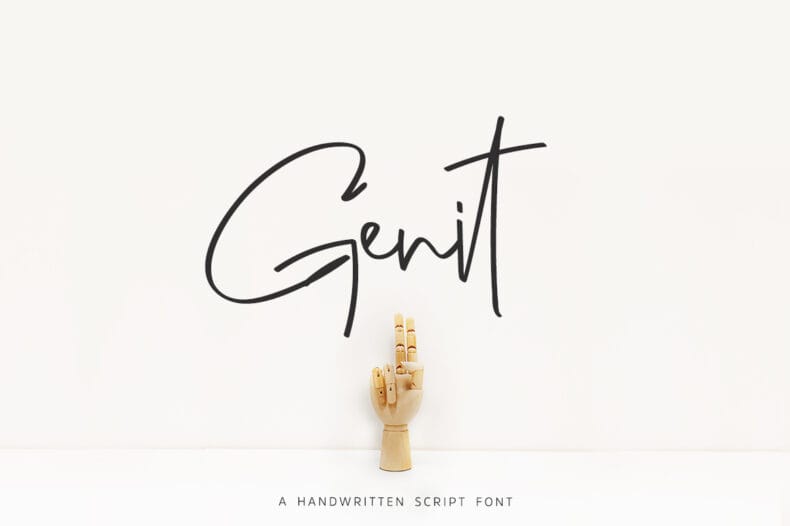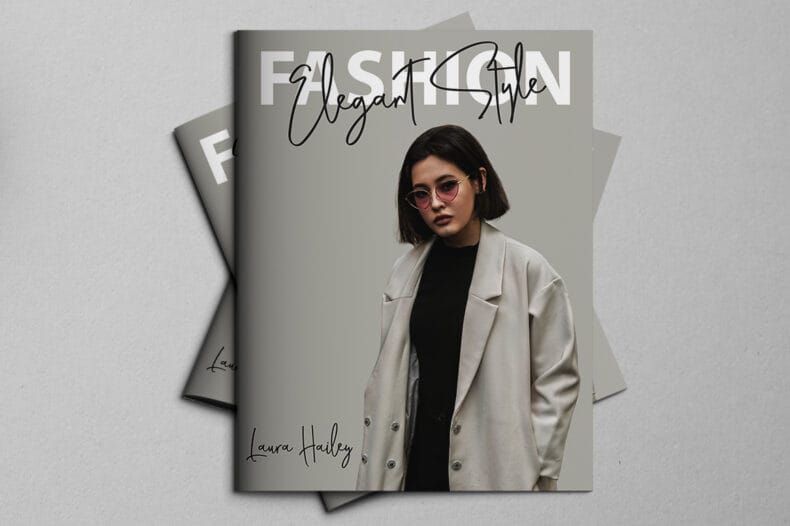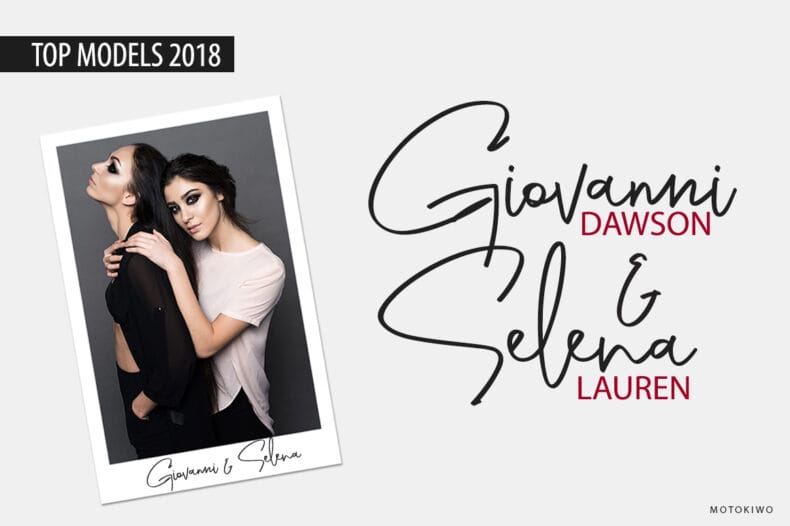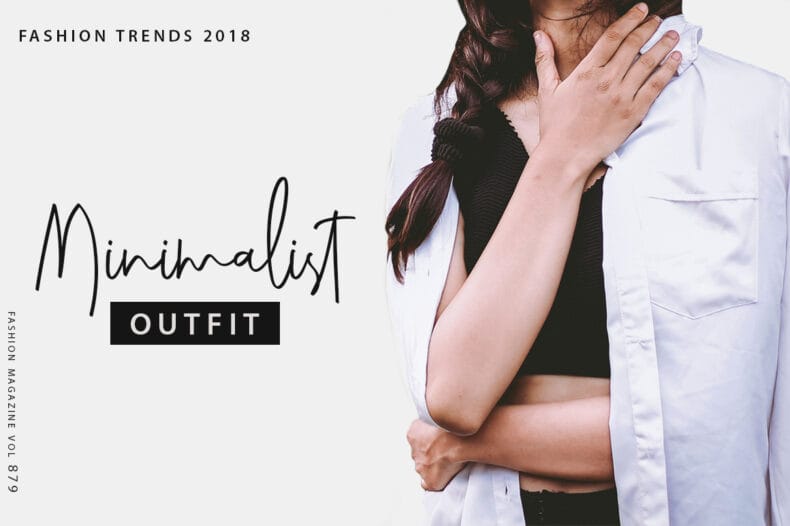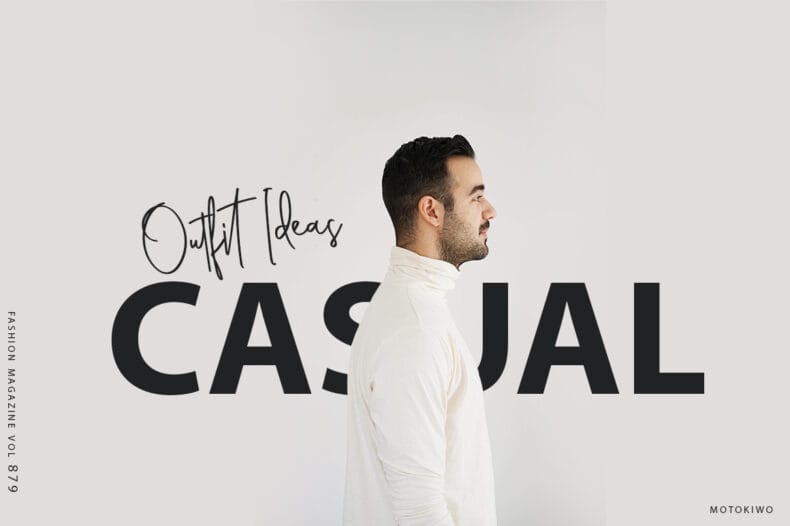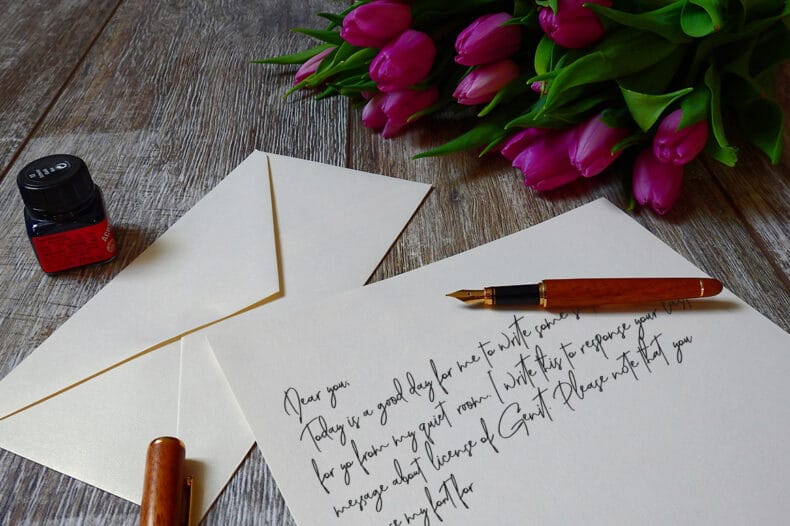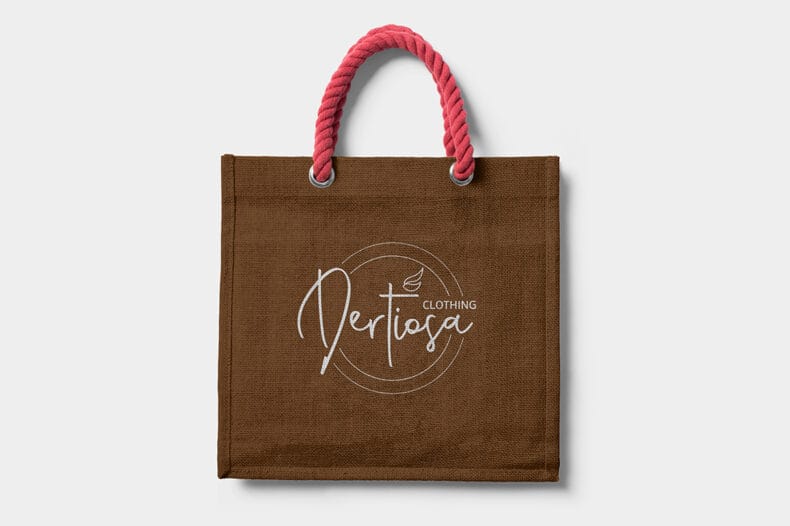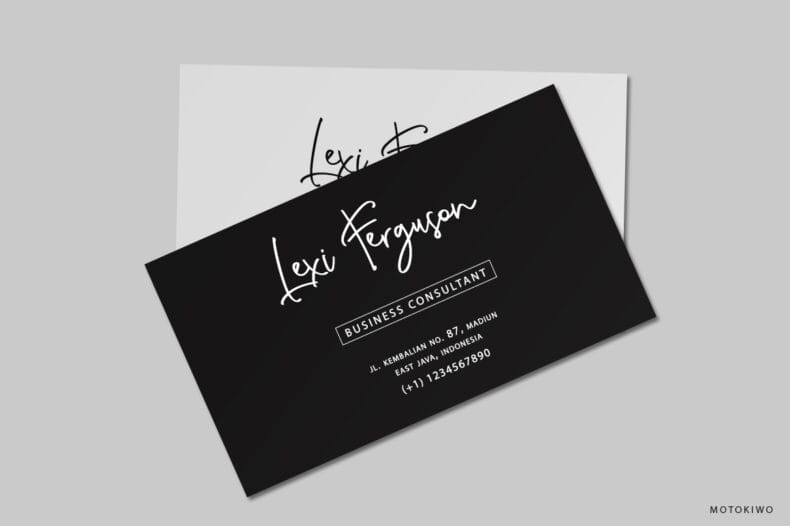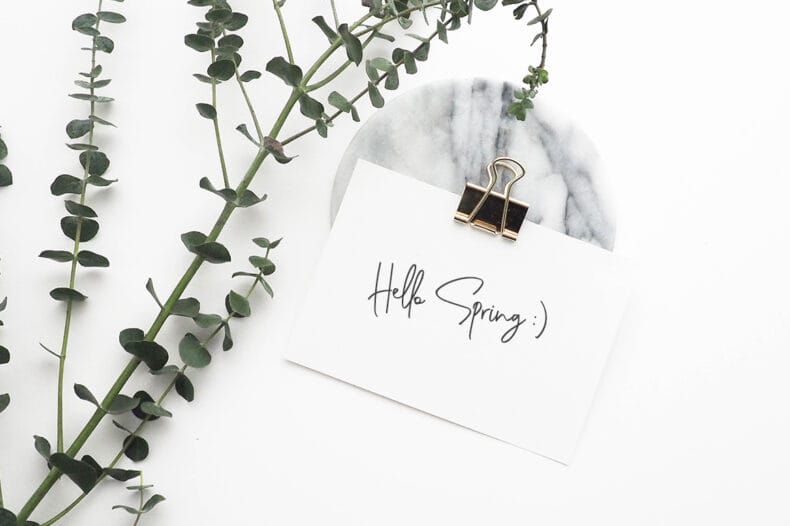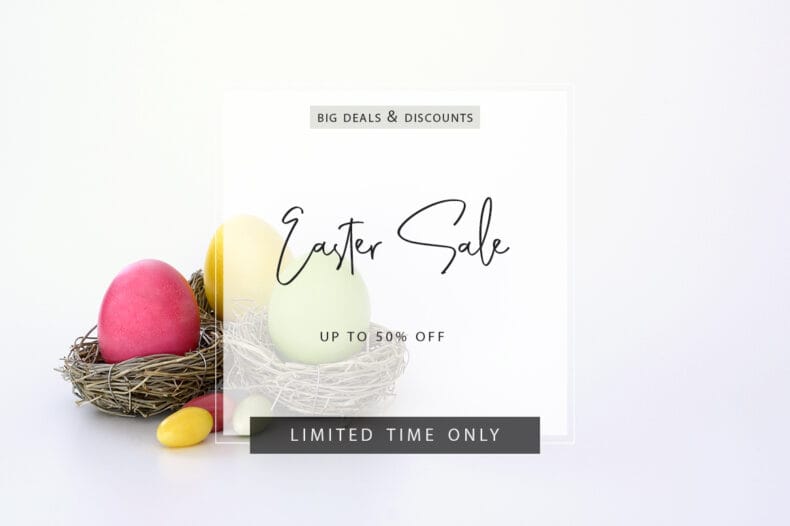
Genit is a handwritten script with a natural, signature-style character. Explore it for minimal brand concepts, personal names, and restrained editorial accents.
Genit provides a handwriting-led option for a short message in a simple composition. It can become a name treatment on a business card, a small magazine accent, or a title element on a book-cover concept.
Let the script supply the personal detail while the surrounding layout stays clear. Test the wording you plan to use and pair it with a straightforward text face for longer content.